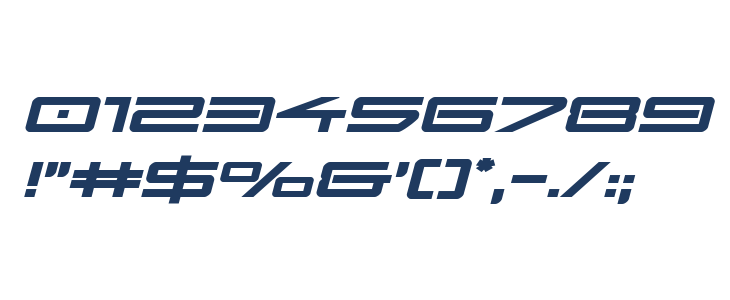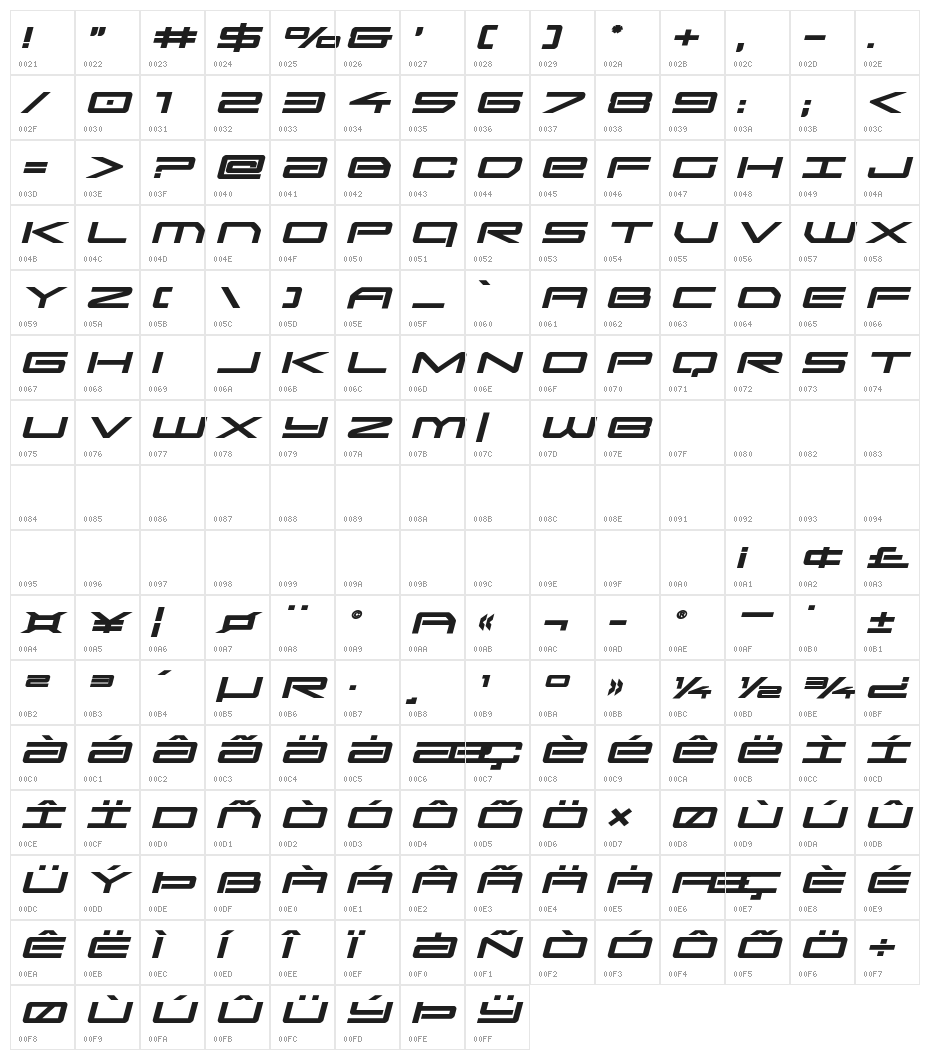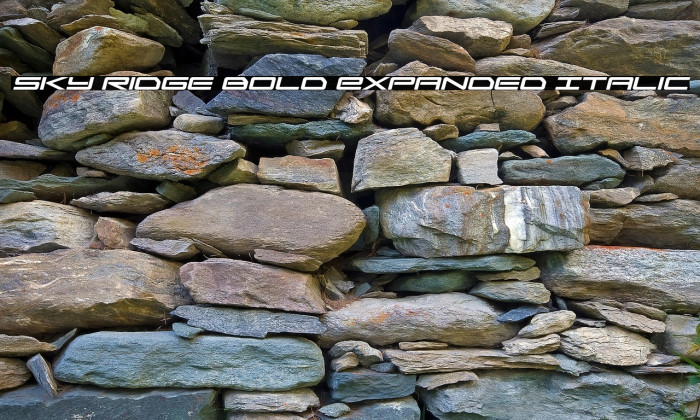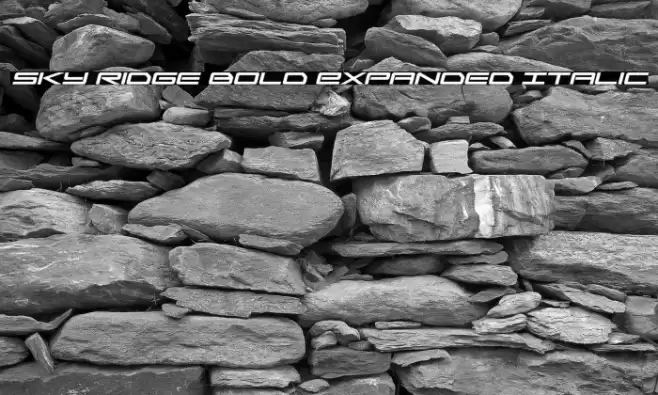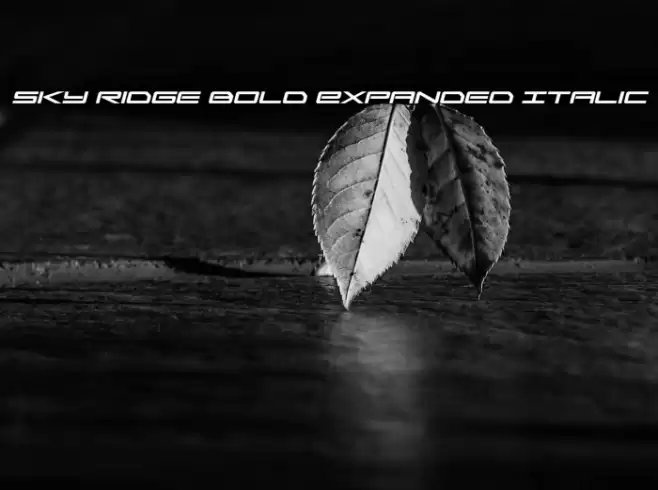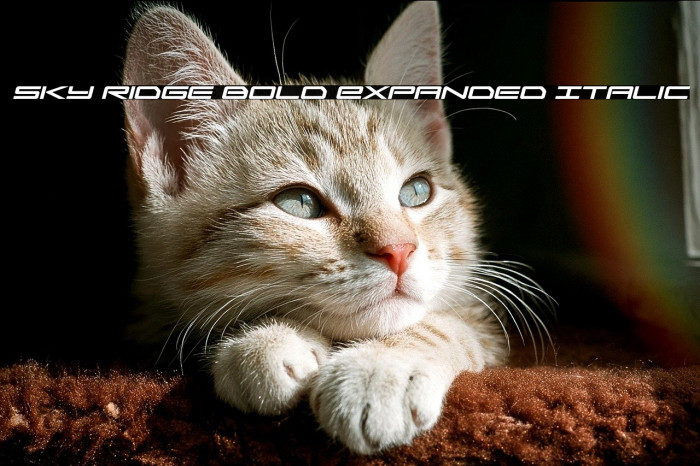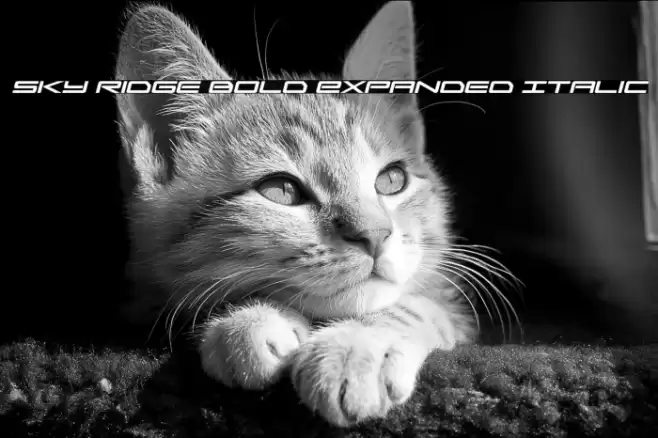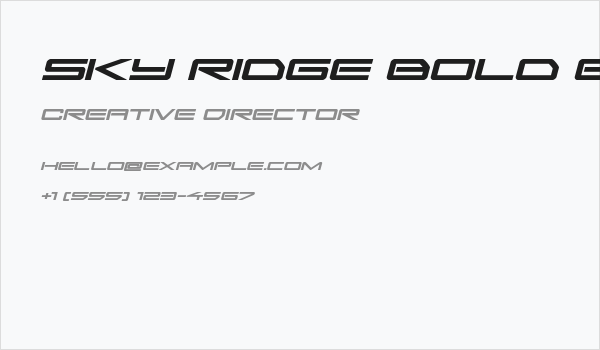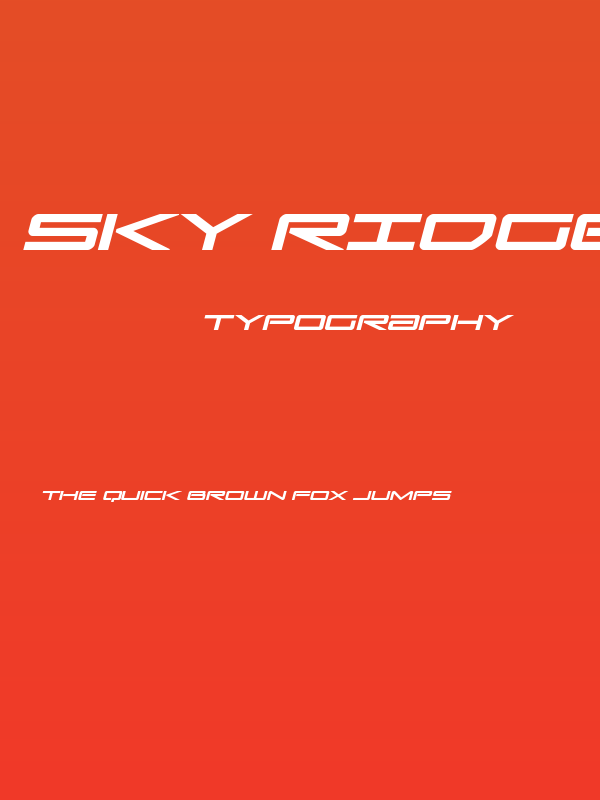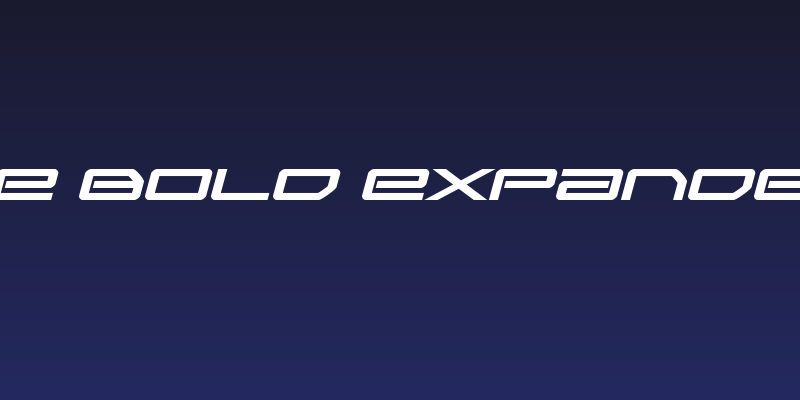
Sky Ridge Bold Expanded Italic Font
Sky Ridge Bold Expanded Italic Description
This font exhibits a bold and expanded style with a distinct italic slant, giving it a dynamic and futuristic appearance. The characters are designed with a geometric precision, featuring sharp angles and clean lines that contribute to its modern aesthetic. The uppercase and lowercase letters maintain a consistent style, ensuring readability while adding a unique flair. The numerals and special characters are crafted to match the overall design, making them suitable for various applications. The font's expanded width allows for a strong visual impact, making it ideal for attention-grabbing headlines or branding materials.
| Overall Style | Futuristic and Geometric |
| Proposed Projects | Ideal for sci-fi themed projects, technology branding, sports logos, and dynamic headlines. |